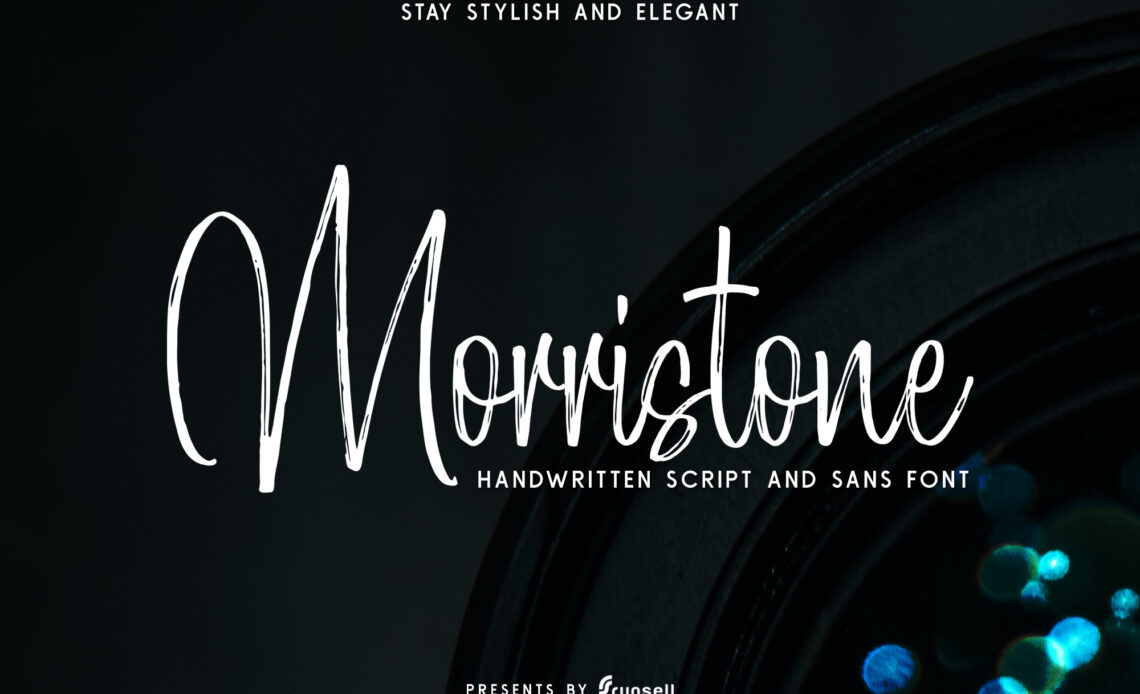
Welcome to the world of Morristone, a captivating script font family that will ignite your creativity and elevate your designs to new heights. This font duo, meticulously crafted by Runsell Graphic, is a harmonious fusion of authenticity and modernity, capturing the essence of handmade artistry with a contemporary twist.
Morristone's signature look lies in its textured brush strokes and high-impact style, reminiscent of a skilled calligrapher's hand. Each letter dances across the page with a natural flow, creating a sense of authenticity and uniqueness that will set your designs apart. Whether you're creating logos, branding, social media posts, wedding invitations, or any other project that calls for a personal touch, Morristone is your perfect partner.
With its dual nature, Morristone offers both a script and a textured version, giving you the versatility to adapt to any design challenge. The script font exudes elegance and grace, perfect for adding a touch of sophistication to your projects. The textured font, on the other hand, brings a touch of rustic charm and organic beauty, ideal for creating designs with a vintage or handcrafted feel.
Morristone's versatility doesn't stop there. It's a font family that thrives in diversity, effortlessly adapting to a wide range of design styles and themes. From minimalist and modern to playful and whimsical, Morristone seamlessly blends into your creative vision, becoming an integral part of your design aesthetic.
But what truly sets Morristone apart is its ability to evoke emotions and create a lasting impression on your audience. Its organic and handcrafted appearance has a captivating charm that draws viewers in, creating a connection that goes beyond words. Whether you're designing a heartfelt message, promoting a brand, or simply expressing your creativity, Morristone will amplify your message and leave a lasting impact.
So, if you're ready to embark on a creative journey where authenticity and modernity collide, Morristone is your ultimate companion. With its captivating style, exceptional versatility, and ability to evoke emotions, Morristone is the key to unlocking your design potential and creating projects that resonate with your audience. Embrace the magic of Morristone today and let your creativity flourish!